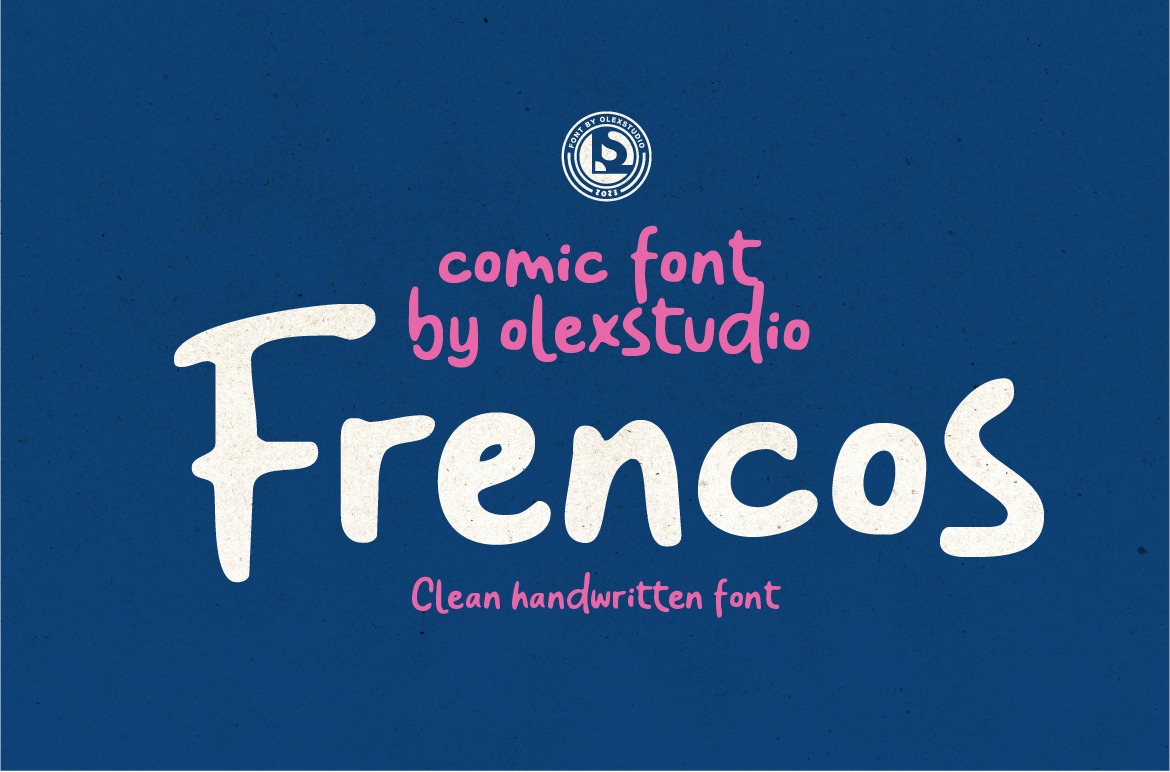
FRENCOS Olstd - Comic Font
FRENCOS Olstd - Comic Font will look gorgeous on all your designs, kids invitation, kids poster design, kids book design, branding materials, kids logo's, and all project design other.
FRENCOS Olstd - Comic Font contains standard characters, Uppercase, Uppercase Alternates, Lowercase, Lowercase Alternates, numbers, punctuation and international glyphs. You will receive OTF, TTF files & WEBFONT.